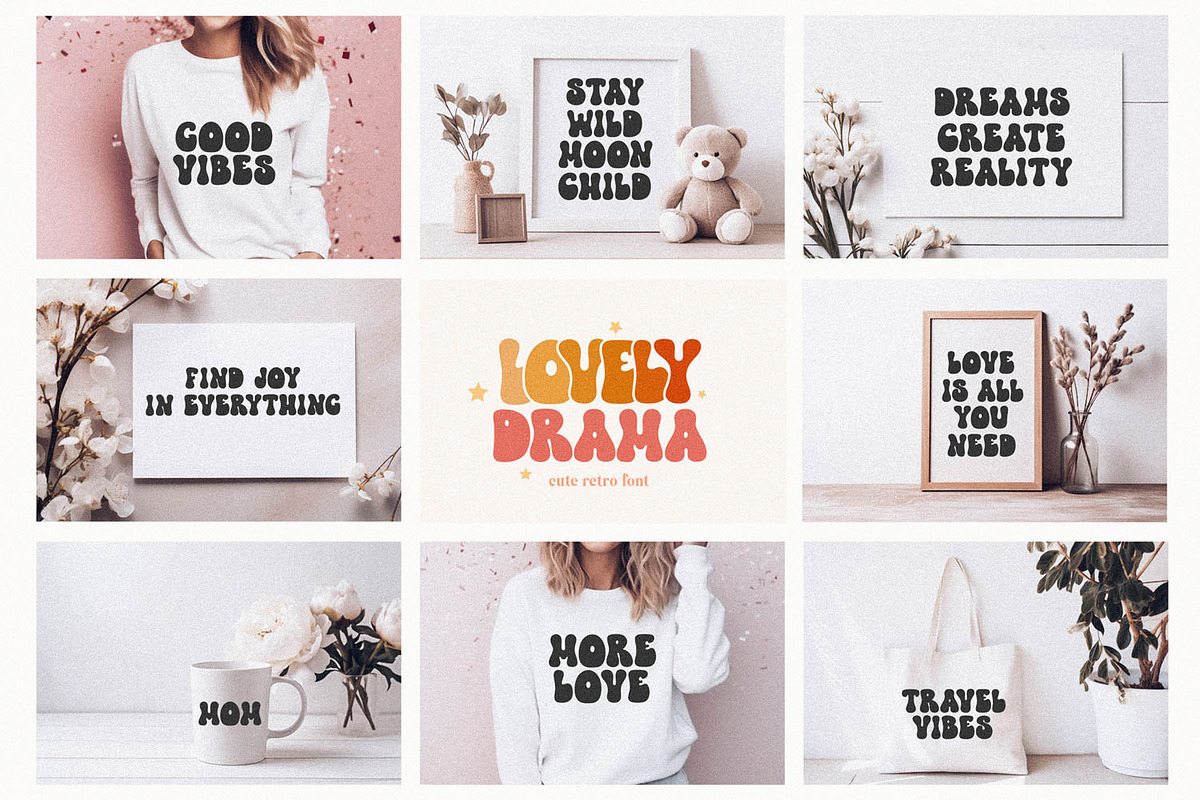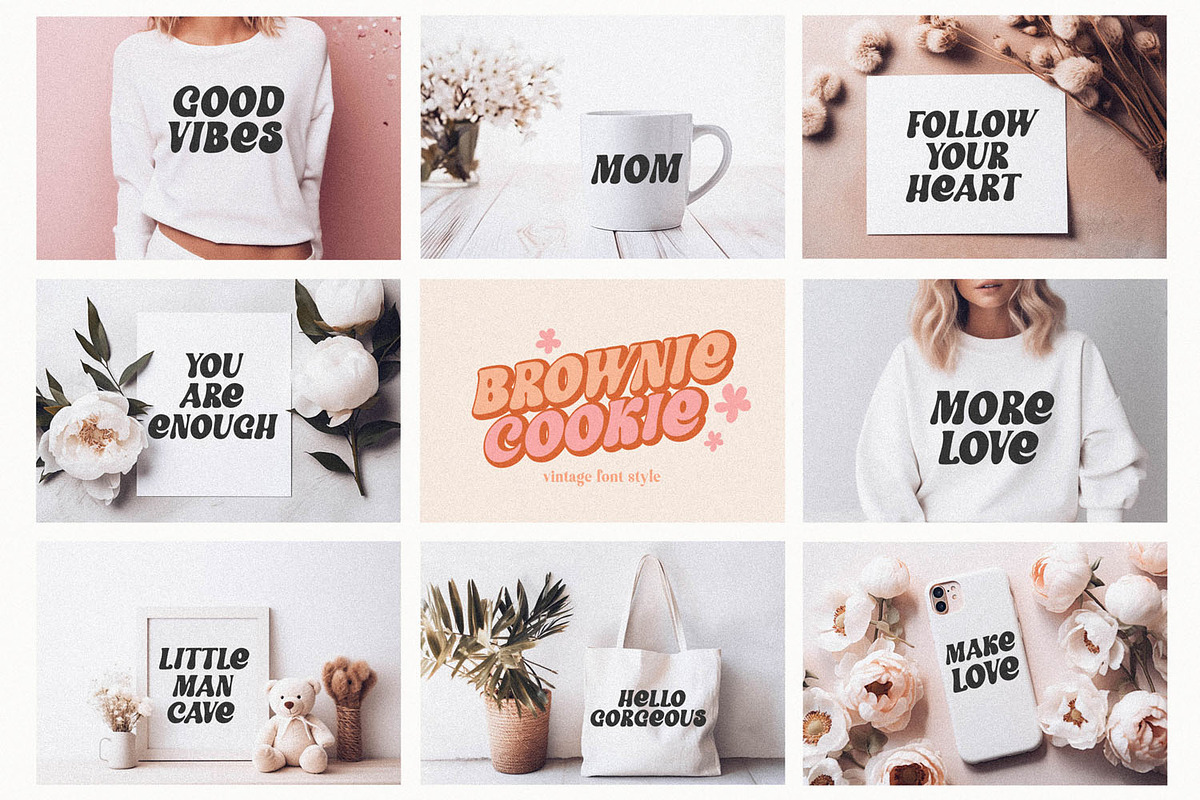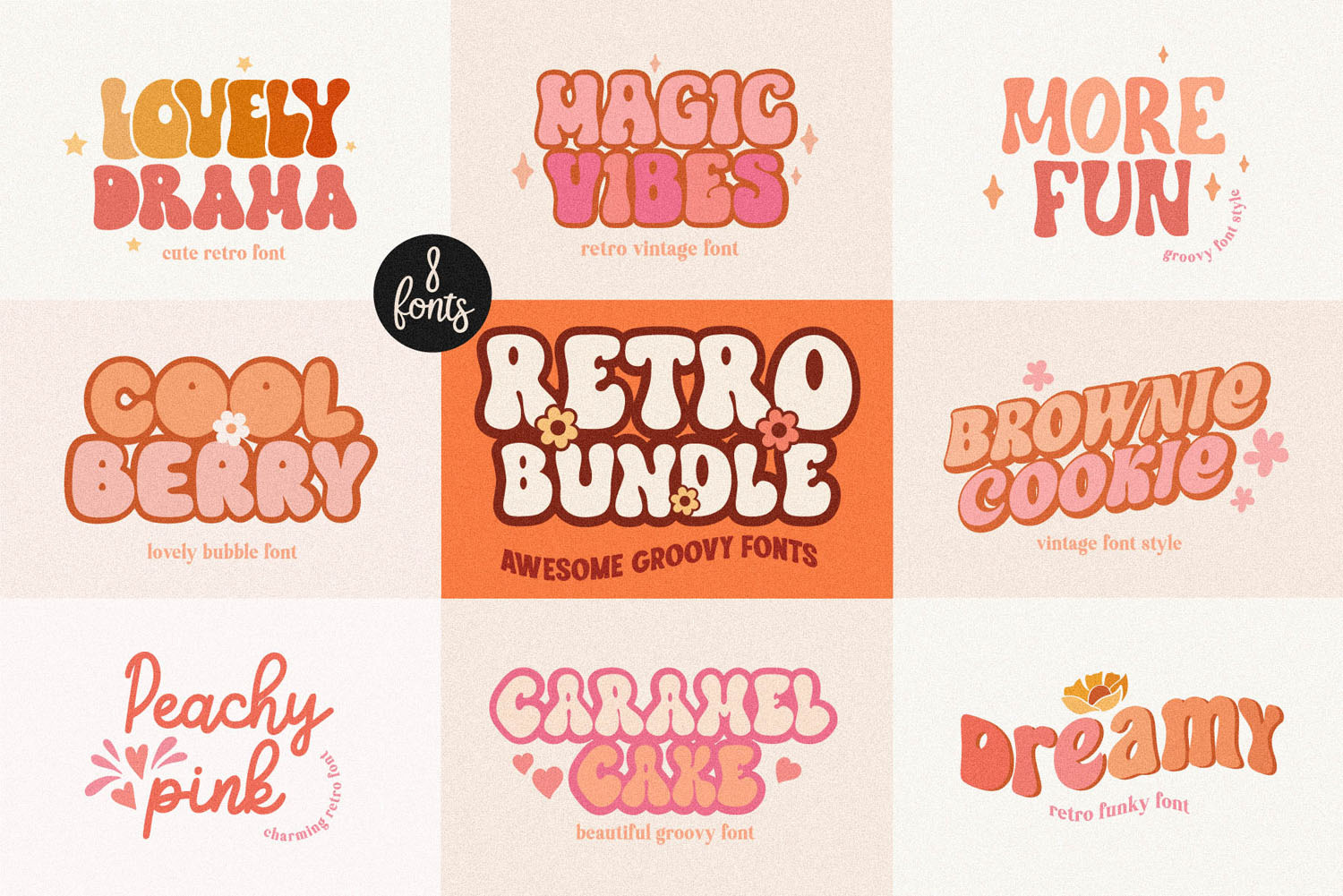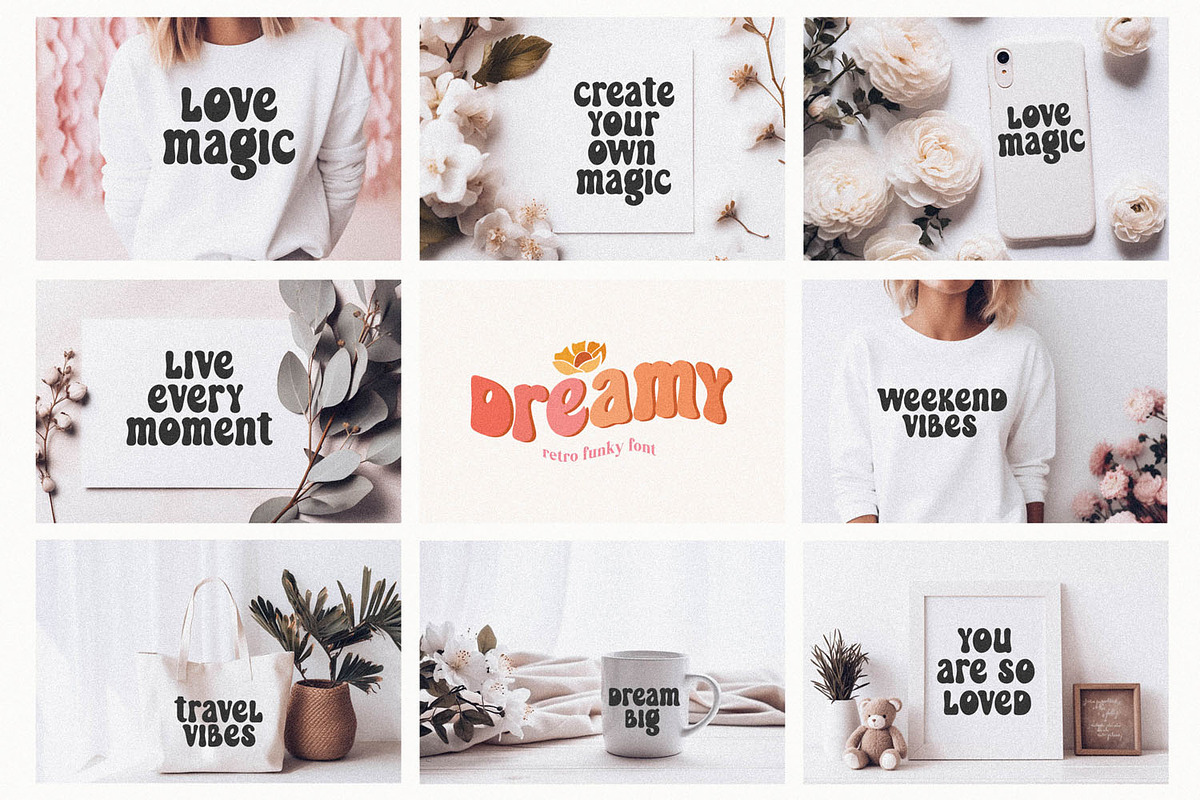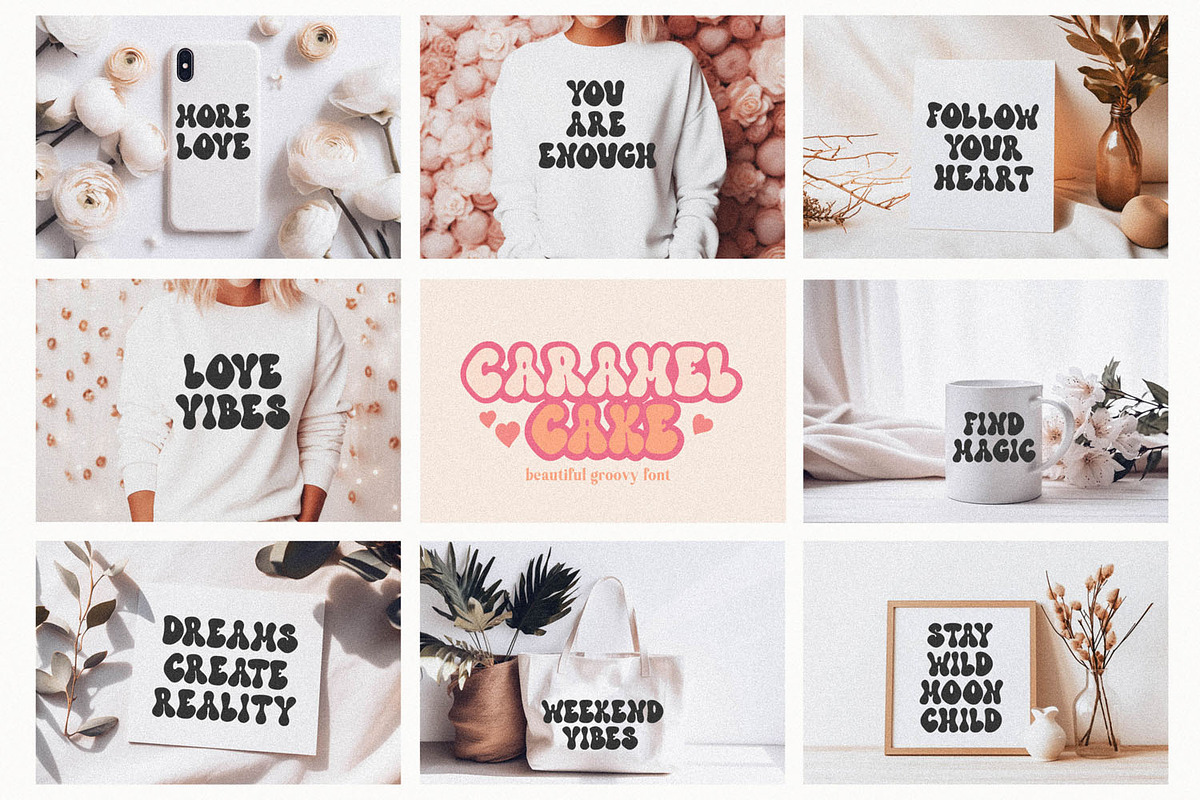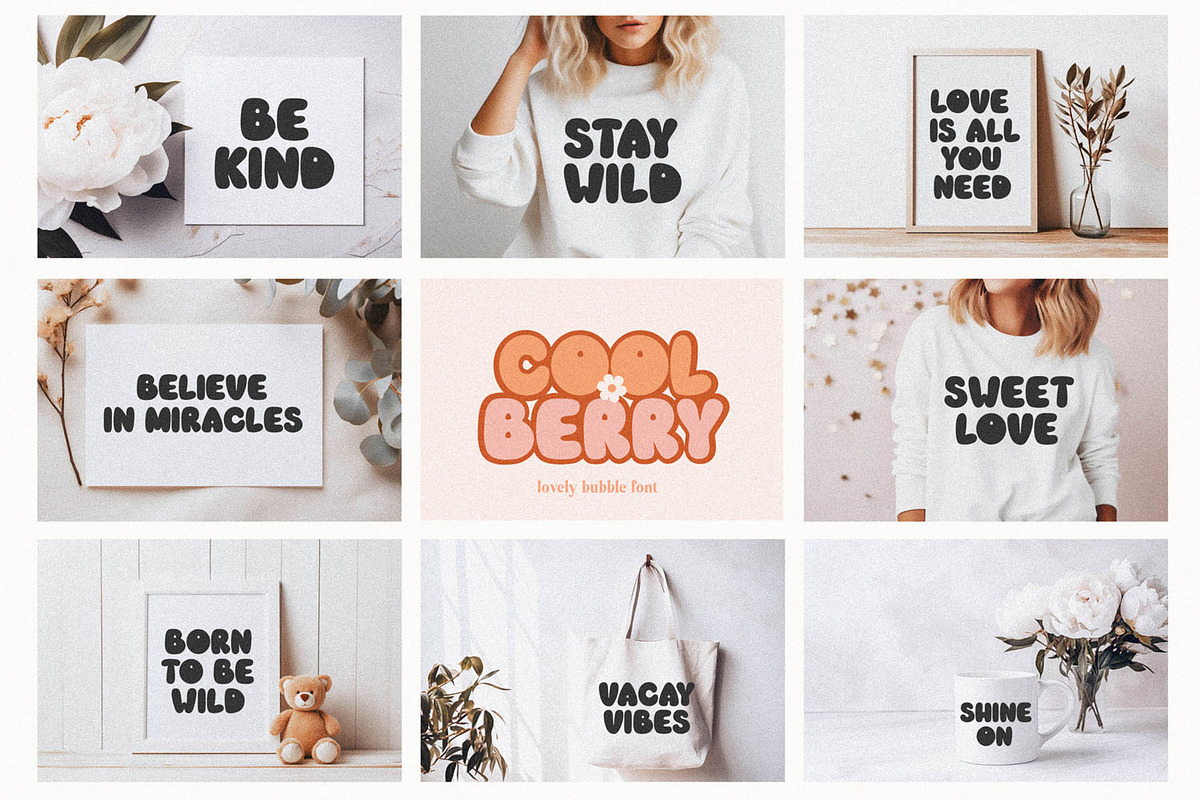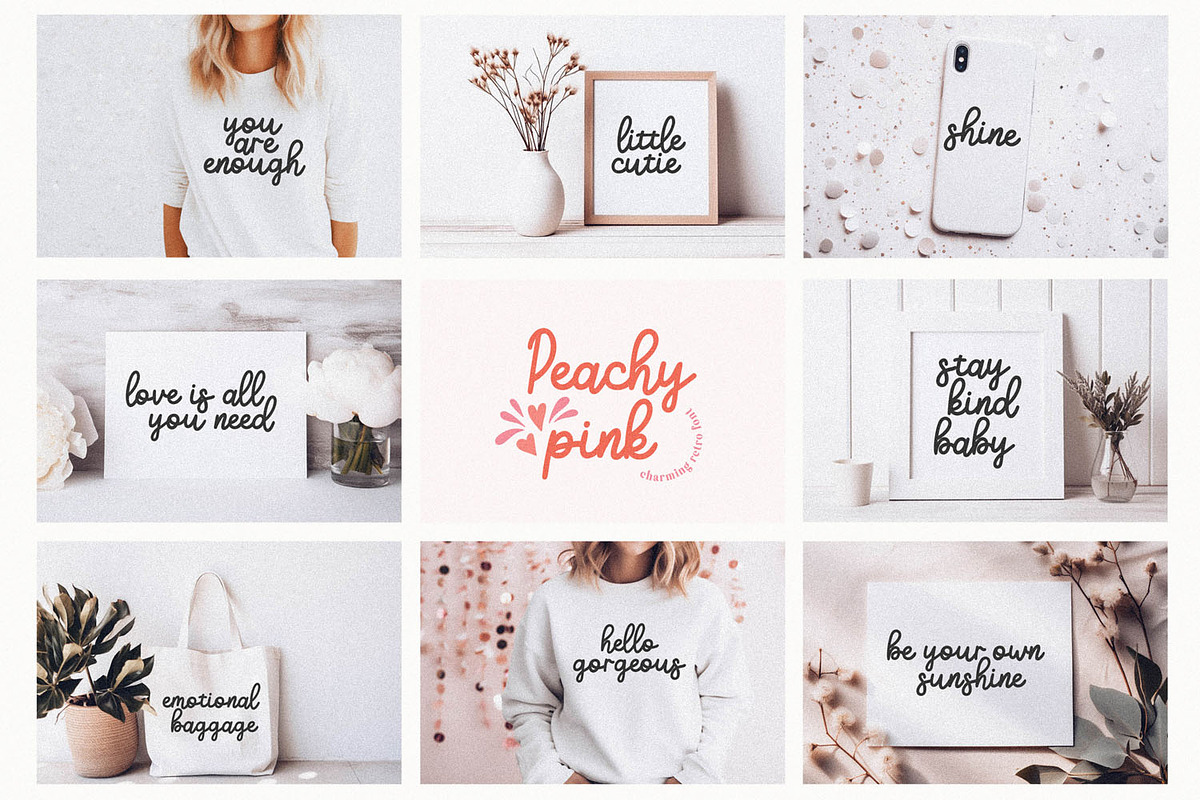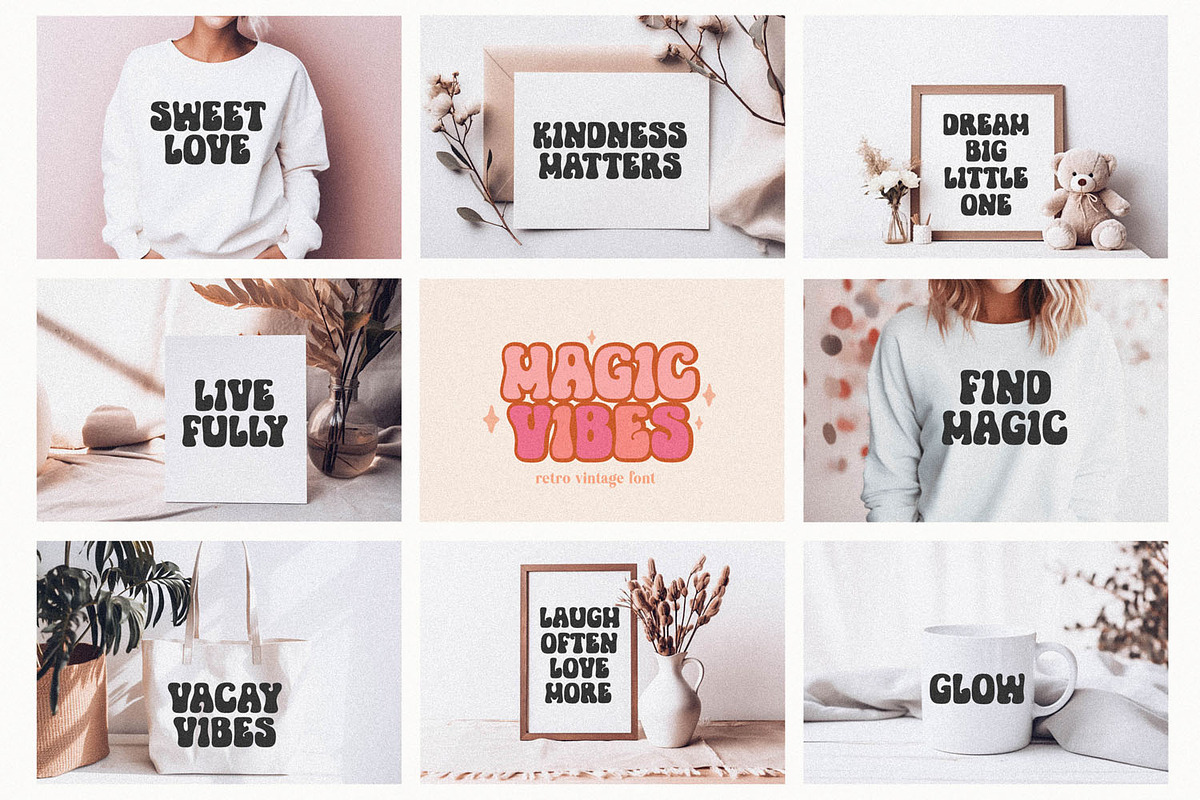
Awesome Retro Bundle - 8 Groovy Font
Awesome Retro Bundle - 8 groovy handwritten fonts for crafters and designers.
Perfect to create:
- DIY Decorations: Create your own decorations like banners, stickers, signs, wall posters, pillows, mugs for your home or party venue.
- Craft Projects: Design craft projects such as scrapbooking, cricut projects, sublimation designs.
- T-shirt Designs: Print t-shirts with cute or fun messages.
- School Projects: Enhance school presentations or projects.
- Social Media Graphics: Design attention-grabbing posts for your social media accounts.
- Lovely Drama
- Magic Vibes
- More Fun
- Brownie Cookie
- Dreamy
- Caramel Cake
- Peachy Pink
- Cool Berry